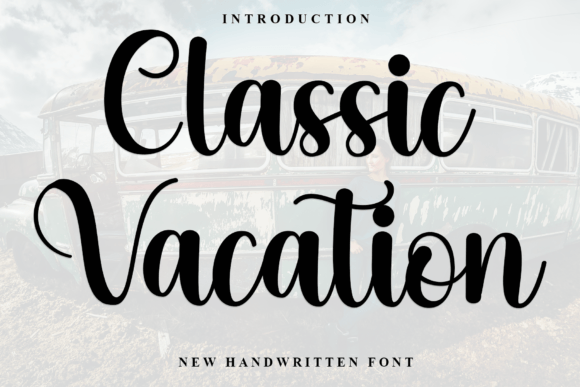
The Perfect Font for a Dreamy Getaway
Have you ever found yourself daydreaming about your next vacation, surrounded by exotic destinations and unforgettable experiences? For many of us, the allure of a classic vacation is more than just a break from reality – it’s a state of mind. And when it comes to capturing that essence in our designs, we need a font that can transport us to a world of elegance and refinement.
Enter the Classic Vacation Font, a beautifully crafted handwritten font that embodies the spirit of a timeless getaway. With its classy, modern look, this font is perfect for logos, branding, invitations, stationery, and much more. Whether you’re a seasoned designer or just starting out, the Classic Vacation Font is a valuable addition to your toolkit, offering endless possibilities for creative expression.
Classic Vacation Font Key Features
- Font Size and Style: The font comes in a range of sizes, from 8pt to 72pt, with multiple styles, including Regular, Italic, Bold, and Bold Italic, to cater to various design needs.
- Unique Characteristics: The font features a nostalgic, hand-drawn aesthetic, with subtle imperfections and flair, evoking a sense of warmth and personality.
- Kerning and Ligatures: The font includes carefully crafted kerning and ligatures, ensuring smooth text flow and professional-looking typography.
Classic Vacation Font Review
I recently had the chance to work with the Classic Vacation Font, and I have to say it’s a bit of a mixed bag. On one hand, I think it’s a great choice for creating a nostalgic or retro vibe in your designs. The font has a ✨ timeless feel to it, and it’s perfect for evoking memories of summertime and relaxation.
One of the things I like about this font is its versatility. It comes in a range of weights, from light to bold, which makes it easy to use in a variety of contexts. I also appreciate the fact that it’s highly legible, even at smaller sizes. Additionally, the font has a ✨ unique feel to it, with a subtle flair to the letterforms that sets it apart from more generic sans-serif fonts.
However, I do have a few ⚠️ caveats. One of the biggest issues I have with this font is its lack of consistency across different platforms. I found that it looked slightly different on Mac versus PC, and even on different devices. This can be a problem if you’re looking to create a cohesive brand identity. Additionally, the font can feel a bit overused, particularly in the context of travel or tourism-related designs.
Overall, I think the Classic Vacation Font is a solid choice for designers looking to create a retro or nostalgic vibe in their work. While it’s not without its limitations, I think the benefits of using this font far outweigh the drawbacks. Just be sure to test it thoroughly across different platforms to ensure consistency.
Recommendations
- Use the Classic Vacation Font for retro or nostalgic designs.
- Test the font thoroughly across different platforms to ensure consistency.
- Avoid using the font for designs where consistency is crucial, such as logos or brand identities.